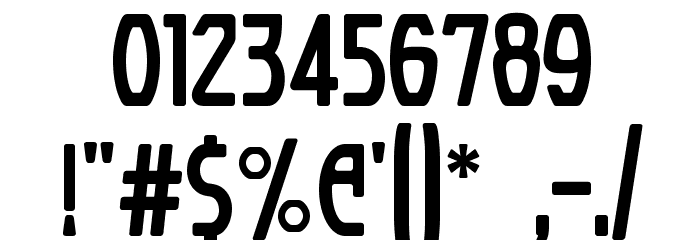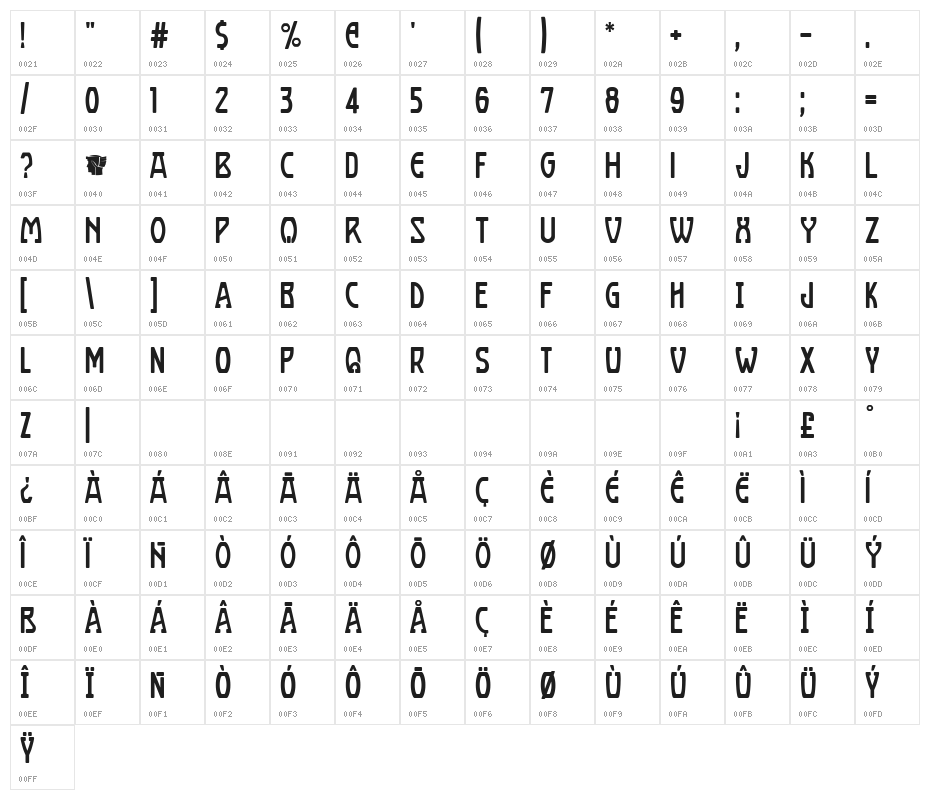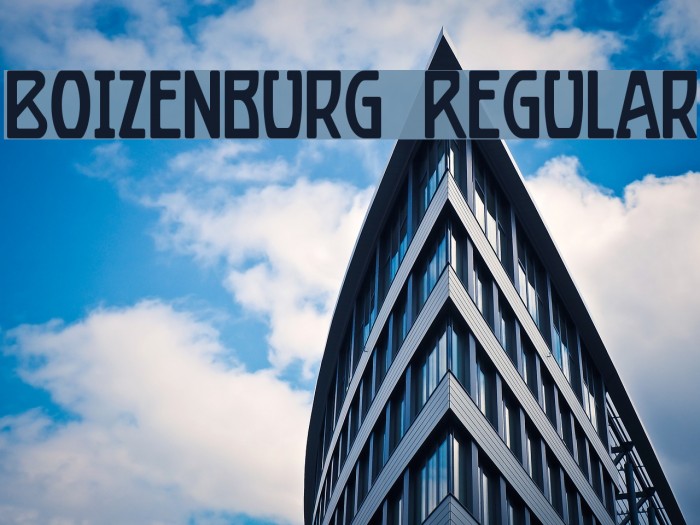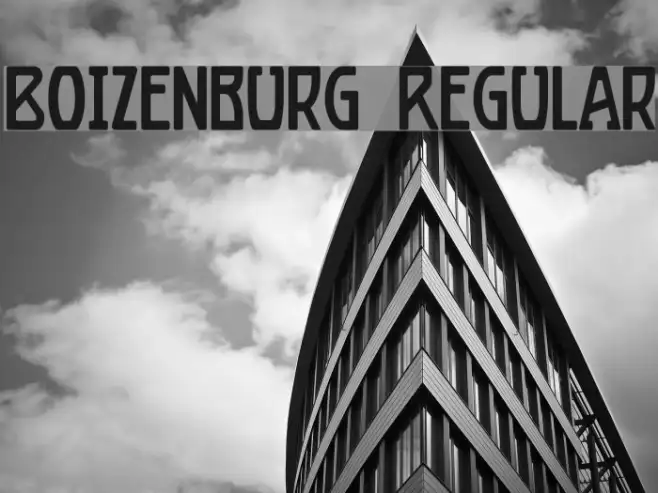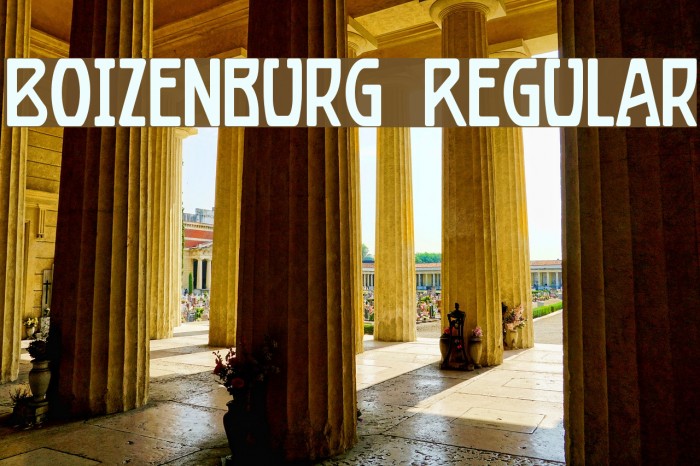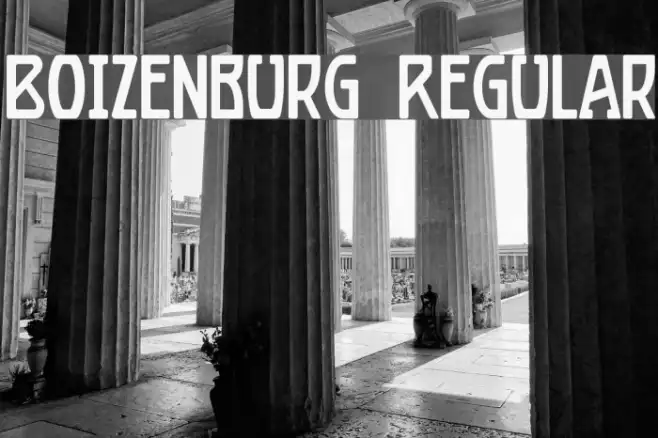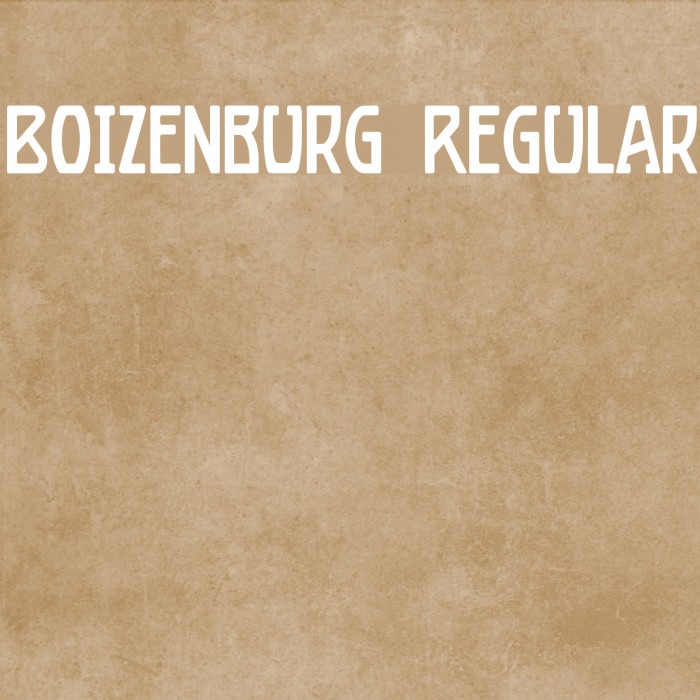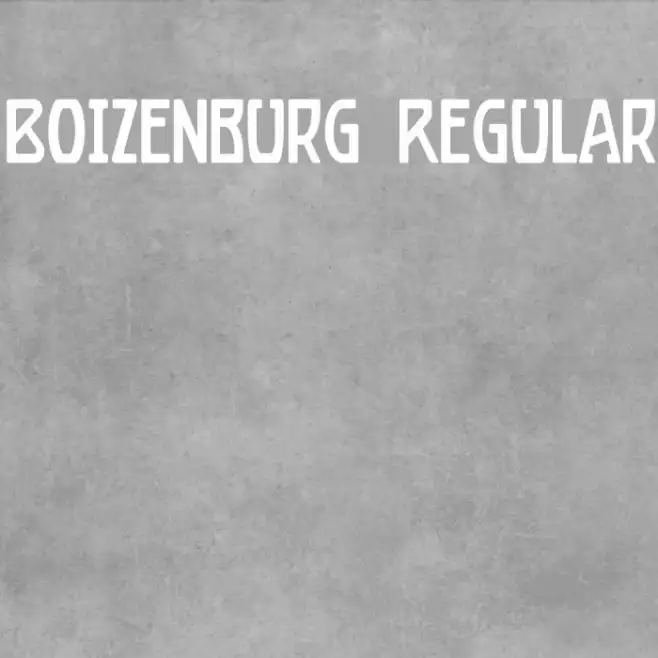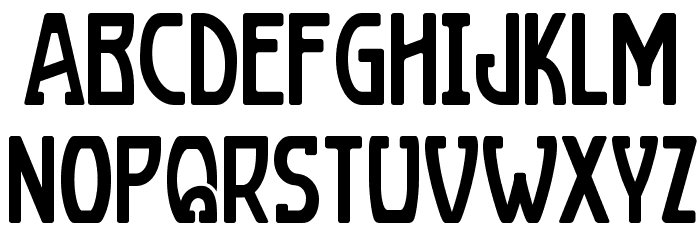
Boizenburg Regular Font
Boizenburg Regular Description
This font features a bold and distinctive style with a geometric and slightly condensed appearance. The uppercase letters have a unique, modern flair with angular cuts and a strong presence, making them stand out prominently. The lowercase letters maintain a consistent style, complementing the uppercase with their rounded yet edgy design. Numbers are clear and bold, ensuring readability. Special characters are well-integrated, maintaining the font's overall aesthetic. The font's design is suitable for projects that require a modern and impactful look, such as branding, posters, and headlines.